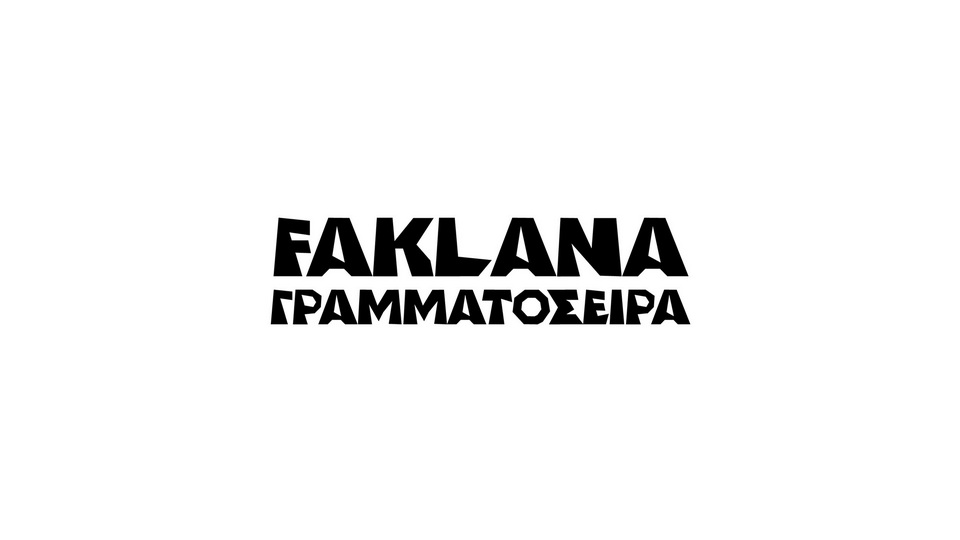
Download Faklana font, a bold, sharp, and chunky display typeface designed to make a powerful impact. The font is characterized by its thick, aggressive letterforms with razor-sharp angles and robust structure.